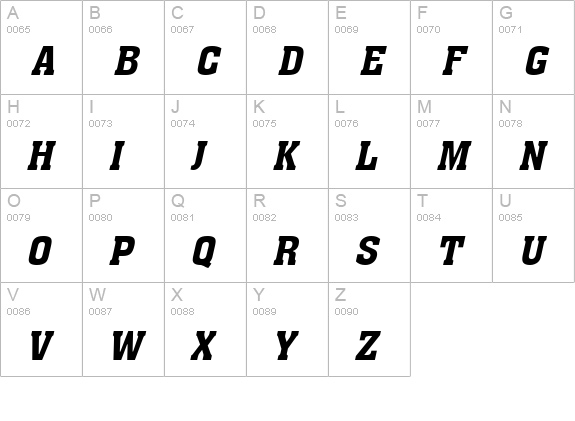
Ache Bold Italic Font Details
Ache Bold Italic is a strong, high-contrast, italic variant in the Ache typeface family \xE2\x80\x94 well suited to headlines, attention-grabbing titles, and strong calls-to-action.
Ache Bold Italic font is a stunning display typeface that exudes strength and elegance. Its bold and italic design commands attention, making it perfect for headlines, titles, and branding materials. The sharp angles and unique curves of this font give it a modern and edgy look, making it stand out from the crowd. The Ache Bold Italic font is not only visually striking but also versatile, suitable for a wide range of design projects. Whether you are creating posters, logos, packaging, or editorial layouts, this font will add a touch of sophistication and flair to your work. Best of all, Ache Bold Italic font is available for free download at FontsMarket.com. So, you can easily access this stylish typeface and elevate your designs without breaking the bank. Don't miss out on the opportunity to add Ache Bold Italic font to your font collection today!